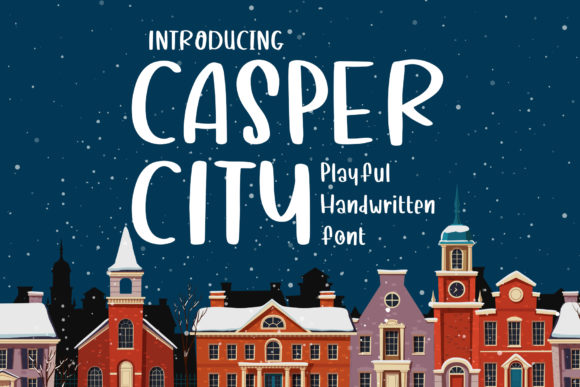
The Ultimate Guide to Casper City Font: A Playful and Versatile Typeface
I’ll never forget the time I was working on a project for a children’s party invitation. I had the design concept all sorted out, but I was struggling to find the perfect font to bring it all together. That’s when I stumbled upon Casper City, a playful and cartoon-like handwritten font that instantly captured the whimsical feel I was going for. In this article, I’ll share my experience with Casper City, its features, and how to make the most of it in your designs.
An Honest Review of Casper City Font
What I Love About Casper City ✨
- Playful and cartoon-like feel that’s perfect for creative projects 🎉
- Suitable for a wide range of applications, from branding to product packaging 📦
- Easy to read and understand, even in smaller font sizes 📚
- Supports OpenType features, glyphs, and stylistic alternates for added versatility 🤩
- Perfect for designs that require a friendly and approachable tone 😊
While Casper City is an excellent font, there are a few things to keep in mind:
- May not be the best choice for formal or professional designs, as it can come across as too playful 🤔
- Some characters may not work well in very small font sizes, so it’s best to use it at larger sizes ⚠️
The Backstory of Casper City Font
Casper City was designed by a team of creatives who wanted to create a font that captured the playful and whimsical feel of childhood. Inspired by classic cartoons and comics, they crafted a font that’s both fun and functional. Today, Casper City is used by designers and crafters around the world to add a touch of personality to their projects.
Q: What type of projects is Casper City best suited for?
A: Casper City is perfect for creative projects that require a playful and friendly tone, such as children’s party invitations, product packaging, and branding.
Q: Does Casper City support OpenType features?
A: Yes, Casper City supports OpenType features, including glyphs and stylistic alternates, which can be accessed in compatible design software.